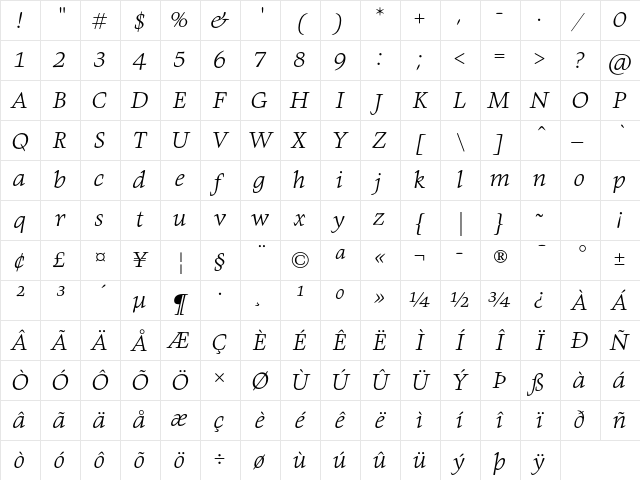
Givens Antiqua Std Light Italic Free Font
Givens Antiqua Std Light Italic
Designer: George Ryan
Design Context for Givens Antiqua Std
Givens Antiqua Std is a composed and adaptable typeface that performs quietly and consistently across a wide range of design contexts. The slanted form adds forward momentum and visual energy. Its slender proportions lend an understated elegance to any composition.
Pro Tip: Use Givens Antiqua Std for emphasis, pull quotes, and subheadings where its slanted energy can add rhythm to the layout.